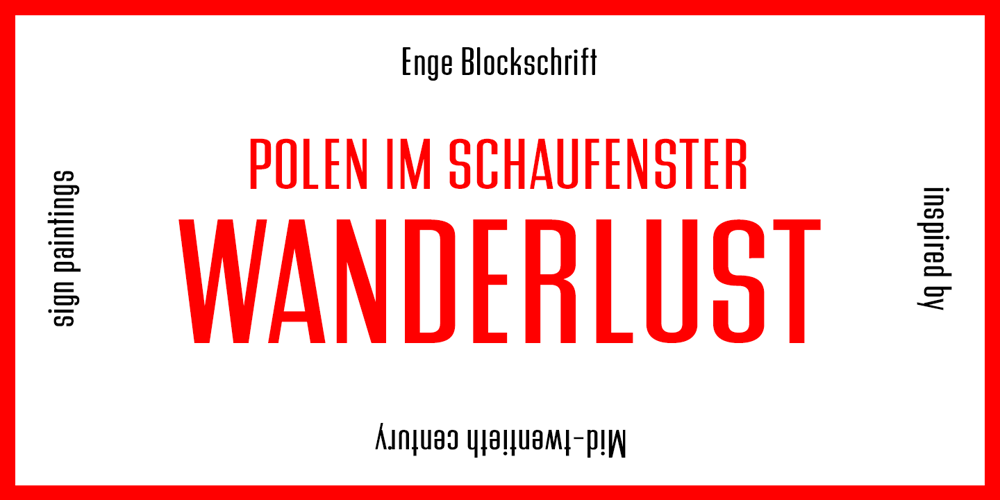
PiS Wanderlust Font Family was designed by Hannes Siengalewicz and published by PiS. PiS Wanderlust contains 2 styles and family package options. PiS Wanderlust is inspired by specimens from the book „Die Schriften des Malers“ from 1950 and by vintage hand painted signposts and guides found on hikes in the outskirts of Vienna and rural Austria, hence the name Wanderlust! Although classic, constructed modernist it features some charmingly unfashionable quirks and is available in rounded for a smooth and warm feel. Lace up those hiking boots, don’t forget to pack some Landjäger and cool drinks and enjoy the view from above the treeline!